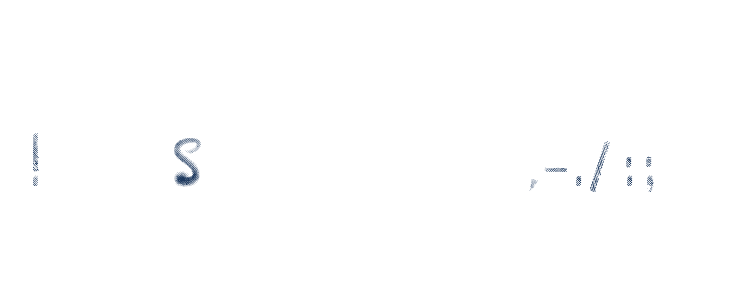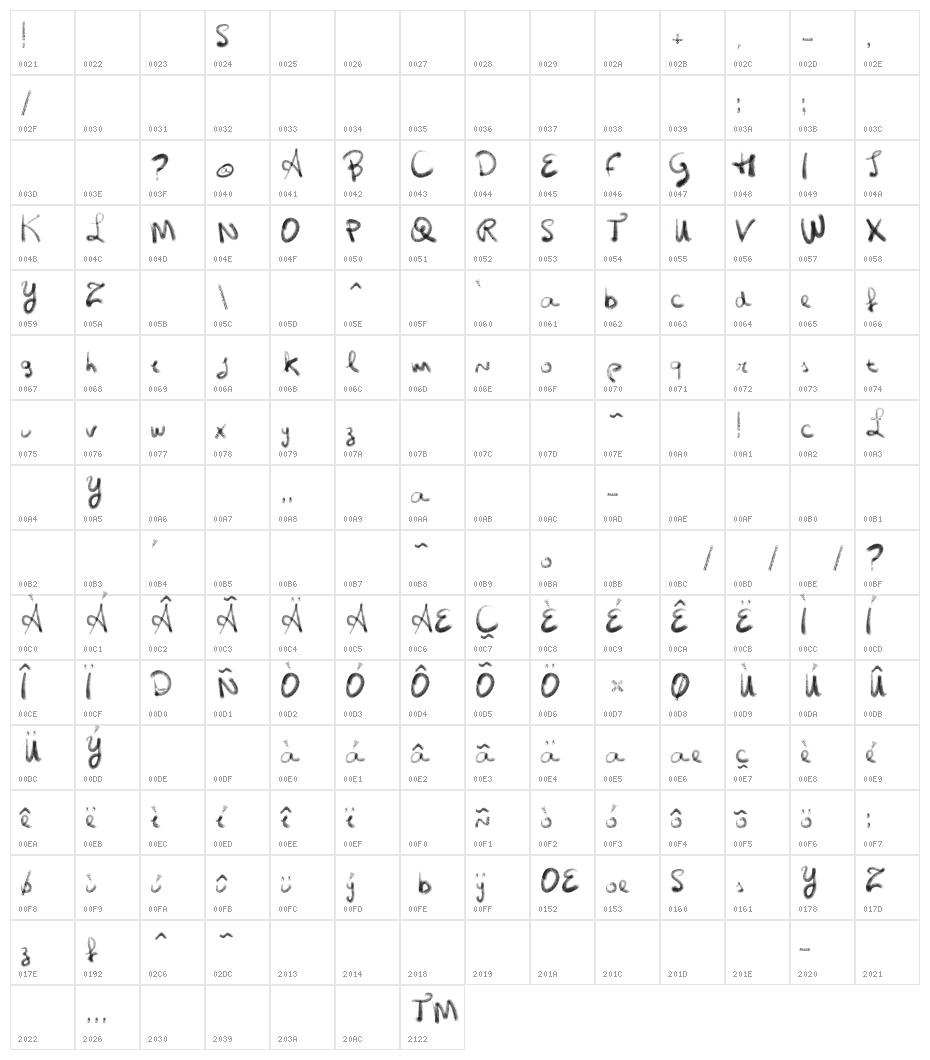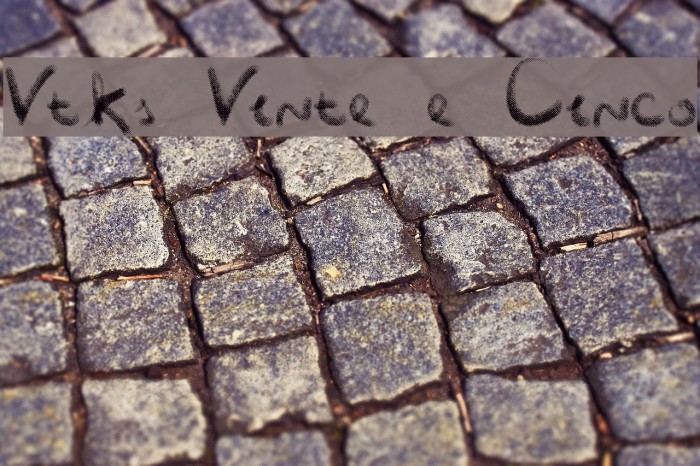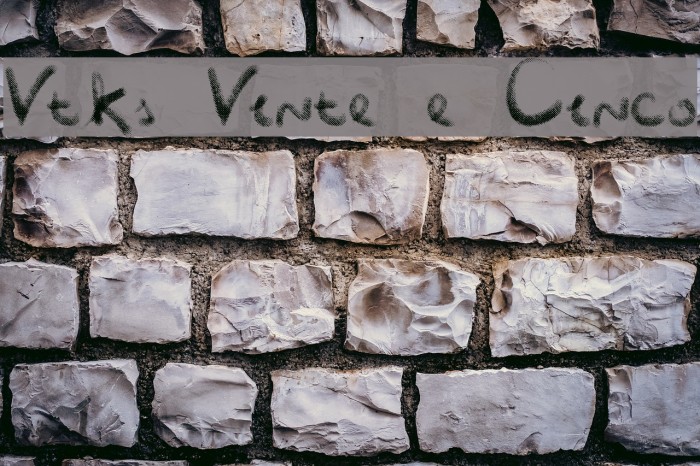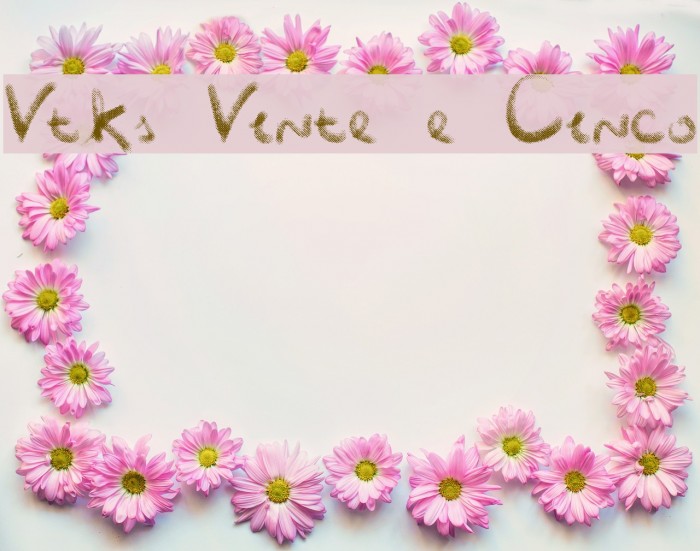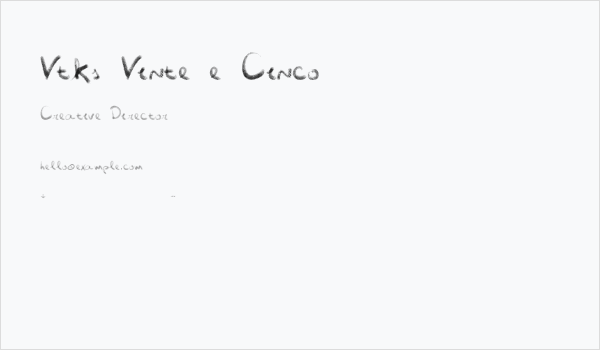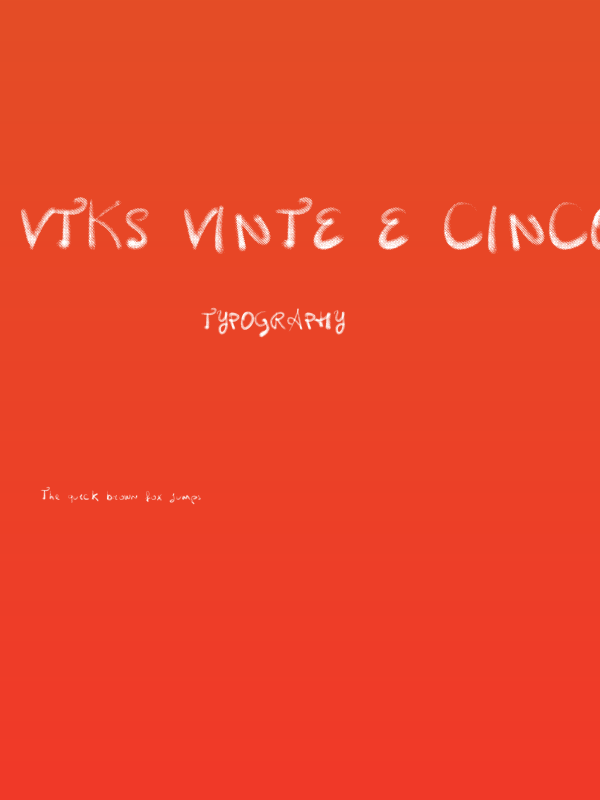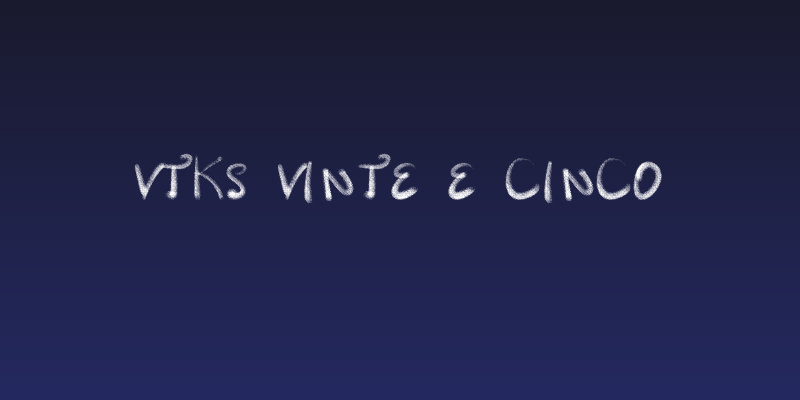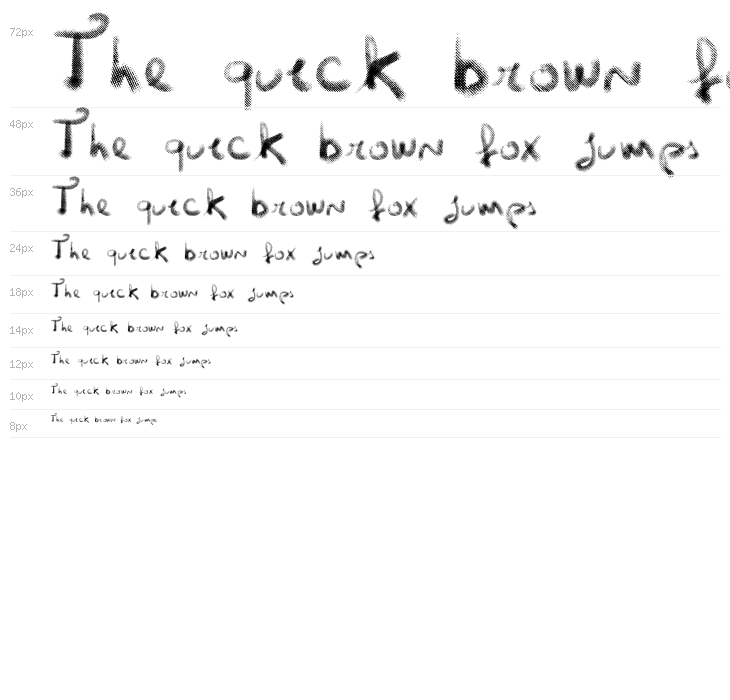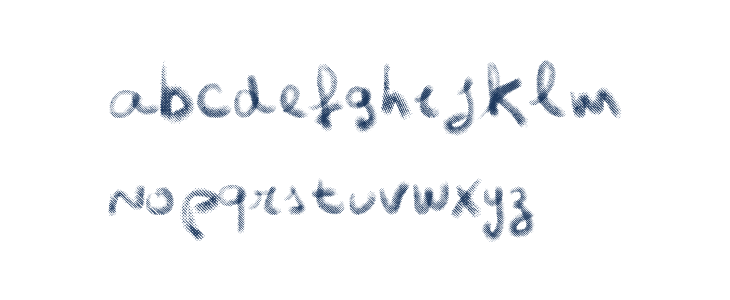
Vtks Vinte e Cinco Font
Vtks Vinte e Cinco Description
This font features a unique, artistic style with a hand-drawn appearance. The letters are characterized by a rough, textured look, giving them a dynamic and expressive feel. The uppercase and lowercase letters maintain a consistent style, with a playful and slightly irregular form. The numbers and special characters follow the same aesthetic, adding to the font's cohesive design. The overall impression is one of creativity and individuality, making it suitable for projects that require a personal touch.
| Overall Style | Artistic |
| Use Case | Logos, Posters, Invitations |
| Proposed Projects | Ideal for creative projects such as posters, invitations, and artistic branding materials. |